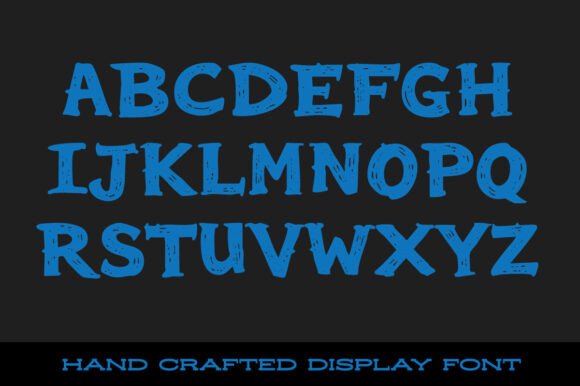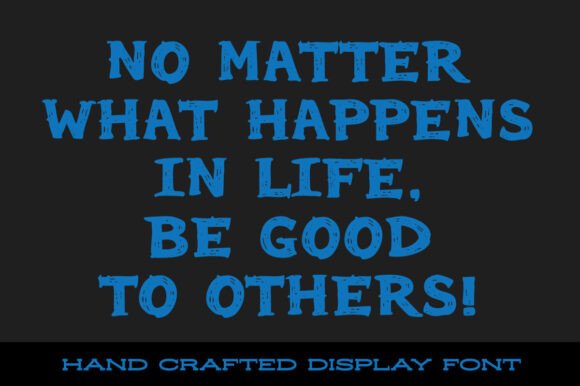
The Art of Timeless Ink
Remember the moment when you stumbled upon a vintage tattoo parlor, and the intricate designs on the walls transported you to a bygone era? The way the faded ink seemed to whisper stories of the past, each stroke a testament to the artist’s skill and passion? That’s the magic of Etched Legacy Font – a vintage-style distressed font that captures the essence of classic tattoo designs and brings it to life in your designs.
As a designer, you’re always on the lookout for the perfect font to elevate your brand or project. Etched Legacy Font is more than just a font – it’s a statement piece that combines bold lines and subtle imperfections to create a unique visual identity. With its timeless charm, this font is perfect for branding, posters, and designs that seek a balance between tradition and modern edge.
Etched Legacy Font Key Features
- Font Family: Etched Legacy Font is a unique, hand-drawn font family consisting of multiple styles and weights.
- Unique Characteristics: Features intricate, hand-drawn details and subtle texture, giving it a nostalgic and vintage feel.
- Style Options: Includes 6 different styles, each with its own distinct personality and flair, allowing designers to choose the perfect fit for their project.
- Legibility: Designed for optimal legibility, making it perfect for body text, headings, and titles in a variety of design contexts.
Etched Legacy Font Review
Overall, I think the Etched Legacy Font has some great qualities, but it’s not without its flaws. Let’s dive in and see what works well and what doesn’t.
- The font’s vintage aesthetic is on point, perfect for creating a nostalgic or retro vibe in designs.
- The subtle texture adds depth and interest to text, making it more engaging for the viewer.
- The font is highly customizable, allowing you to adjust the texture, color, and more to fit your design needs.
- The font can be a bit too ornate for some designs, making it difficult to read at smaller sizes.
- The texture can be overpowering if not balanced with other design elements.
- Some characters may not be as legible as others, requiring extra attention to detail when using the font.
Overall, I think the Etched Legacy Font is a solid choice for designers looking to add a vintage touch to their work. With some careful consideration of its limitations, it can be a great addition to your design toolkit.
Practical Application Guide: Etched Legacy Font
Tips for Getting the Most Out of Etched Legacy Font
Use Etched Legacy Font to add a touch of elegance and sophistication to your designs.
Pair it with a bold font for contrast and visual interest.
Use Etched Legacy Font for:
Business cards and letterheads.
Photography and art projects.
Alternatives to Etched Legacy Font for Designers
Great Vibes is a beautiful, modern script font that can be used for a variety of designs, from wedding invitations to magazine covers. It has a similar elegant and sophisticated feel to Etched Legacy Font, but with a more relaxed and casual tone. Use it for designs that require a touch of luxury and whimsy.
Comparison: Great Vibes Font has a more fluid and connected look compared to Etched Legacy Font’s more rigid, etched feel. It’s a good choice for designers who want to add a touch of elegance without being too formal.
Carolyna Pro is a high-end, elegant script font that’s perfect for luxury branding, high-end packaging, and premium marketing materials. It has a similar level of sophistication to Etched Legacy Font, but with a more refined and polished look. Use it for designs that require a touch of exclusivity and refinement.
Comparison: Carolyna Pro Font has a more refined and polished look compared to Etched Legacy Font’s more rugged and textured feel. It’s a good choice for designers who want to create a sense of luxury and exclusivity.
Q: Can I customize the Etched Legacy Font to fit my specific design needs?